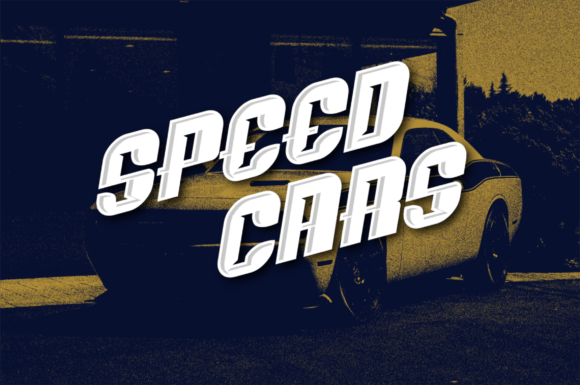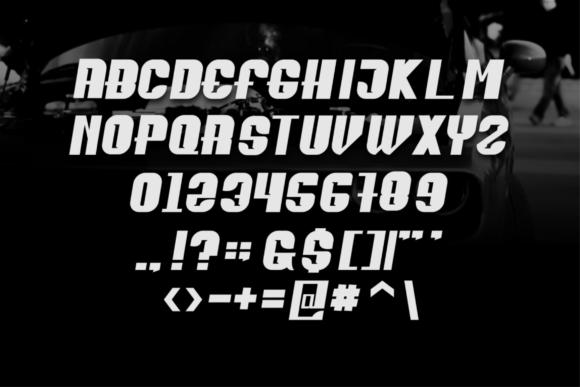
Cegof Font: Elevate Your Designs with a Futuristic and Assertive Display Font
In the world of typography, fonts play a crucial role in bringing creative ideas to life. For designers and crafters looking to add a modern and cool touch to their projects, Cegof Font is an excellent choice. This futuristic and assertive display font is designed to make a statement, and its versatility makes it suitable for a wide range of applications.
The Characteristics of Cegof Font
Cegof Font boasts a unique and contemporary design that sets it apart from other fonts. Its clean lines, geometric shapes, and precise curves create a visually appealing aesthetic that is both modern and sophisticated. The font’s assertive nature makes it perfect for headlines, titles, and other display purposes, while its futuristic look adds a touch of innovation and forward thinking to any design.
Why Choose Cegof Font?
So, why should designers and crafters choose Cegof Font for their projects? Here are a few compelling reasons:
- Versatility: Cegof Font is suitable for a wide range of creative ideas, from branding and advertising to packaging and digital media.
- Modern Aesthetic: The font’s modern and cool look makes it perfect for designers who want to add a touch of sophistication and elegance to their work.
- Easy to Read: Despite its futuristic design, Cegof Font is easy to read, making it an excellent choice for body text and other applications where legibility is crucial.
- Customizable: Cegof Font can be easily customized to fit your project’s specific needs, allowing you to experiment with different styles and effects.
How to Use Cegof Font in Your Projects
Adding Cegof Font to your projects is a straightforward process. Here are a few tips to get you started:
- Pair it with Other Fonts: Cegof Font pairs well with other fonts, allowing you to create a unique and visually appealing typography scheme.
- Experiment with Colors: The font’s modern design makes it easy to experiment with different colors and effects, adding an extra layer of creativity to your work.
- Use it for Headlines: Cegof Font is perfect for headlines and titles, making it an excellent choice for advertising, branding, and other applications where you want to grab attention.
The Benefits of Using Cegof Font
By incorporating Cegof Font into your designs, you can enjoy a range of benefits, including:
- Increased Legibility: The font’s clean design and precise curves make it easy to read, even at small sizes.
- Enhanced Creativity: Cegof Font’s modern and cool look inspires creativity, allowing you to experiment with new ideas and designs.
- Professional Look: The font’s sophisticated aesthetic gives your work a professional look, making it perfect for clients and customers who demand high-quality designs.
Cegof Font is a powerful tool for designers and crafters looking to add a modern and cool touch to their projects. Its futuristic and assertive design makes it perfect for a wide range of applications, from branding and advertising to packaging and digital media. With its versatility, ease of use, and range of benefits, Cegof Font is an excellent choice for anyone looking to elevate their designs and bring their creative ideas to life.